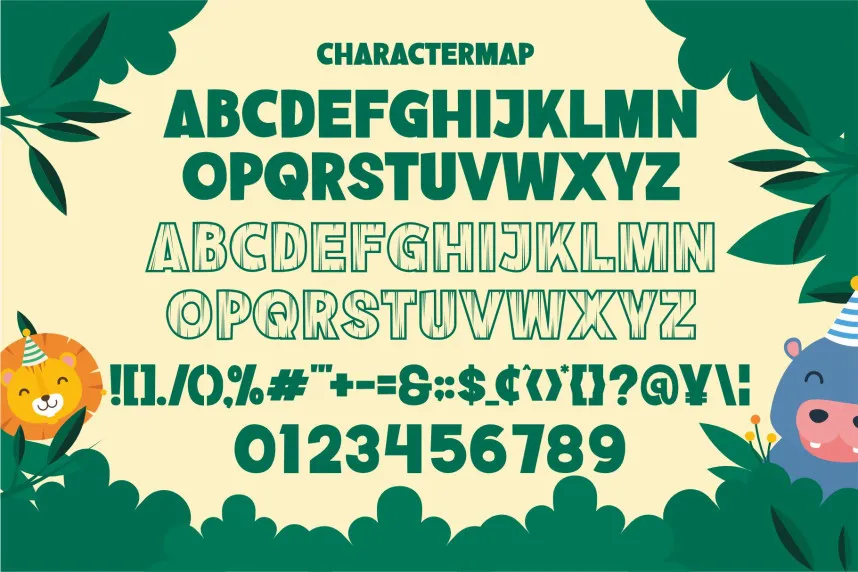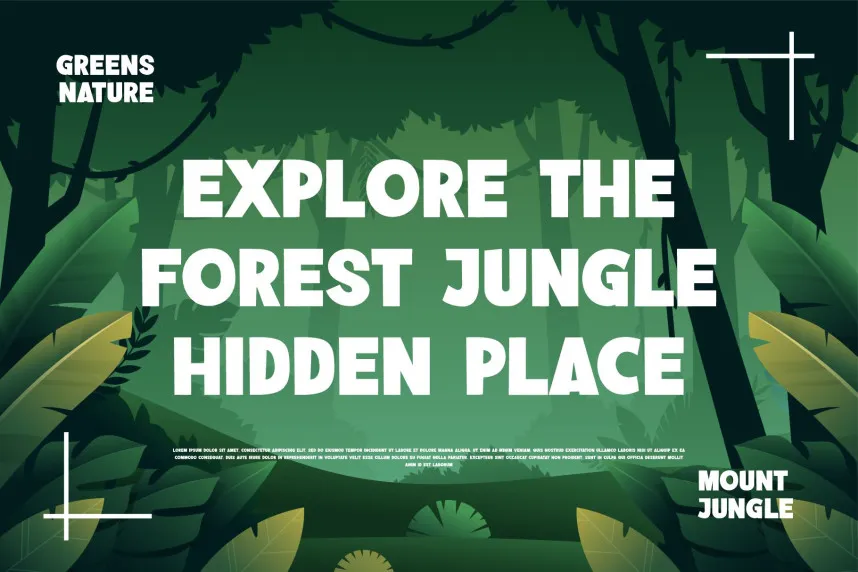
Jungle Dutchs Font is bold and adventurous. Inspired by the spirit of nature, it has a strong style that feels exciting and full of energy. The design reflects exploration and wilderness.
This font works well in projects that want to capture adventure. It can be used in travel branding, posters, children’s games, and even eco-friendly campaigns. Its wild personality makes it memorable and fun.
The thick strokes make it easy to use for titles and packaging. When placed on large displays, it creates a strong impact that demands attention. It adds strength and character to any project.
Designers enjoy using Jungle Dutchs because it feels alive. It brings a sense of freedom and adventure into their work. Every word looks more energetic when written in this style.
It is also a great choice for designs aimed at children, because of its playful energy. At the same time, its boldness makes it suitable for outdoor events or adventurous branding.
Type Adventure Display
Designer Wild Creative Studio
Usage Ideal for travel posters, children’s games, and eco projects
Special Feature Bold strokes inspired by jungle adventure themes
Jungle Dutchs is more than a font, it is an adventure in itself. It allows designers to bring the wild spirit of exploration into their creative projects.